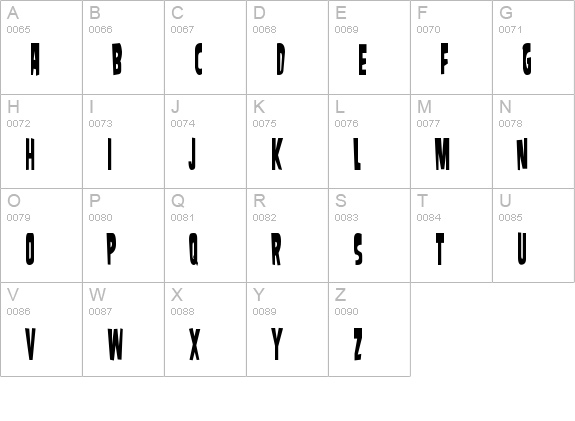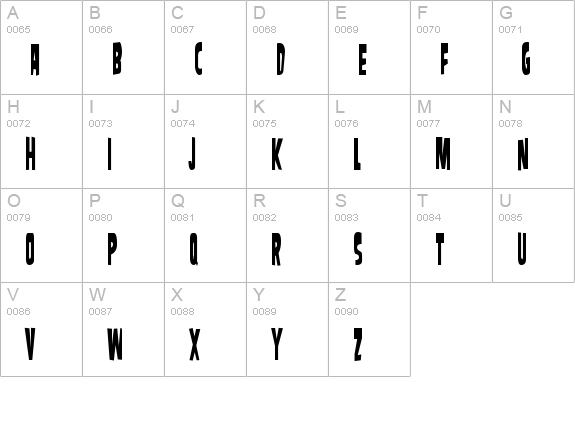
SamdanCondensed Font Details
SamdanCondensed font is a stunning typeface that exudes a sense of elegance and sophistication. With its sleek and slender design, it is perfect for a wide range of design projects, from logos and branding to headlines and posters. This font boasts a harmonious balance between its bold letters and delicate curves, creating a visually appealing and memorable look. Whether you want to make a bold statement or add a touch of refinement to your designs, SamdanCondensed font is sure to impress. What sets this font apart is its versatility and adaptability. It can effortlessly complement both modern and vintage designs, making it an excellent choice for designers looking for a font that can stand the test of time. But what makes SamdanCondensed font even more enticing is the fact that it is free. That's right, you can download this amazing font for absolutely no cost at FontsMarket.com. This means that you can elevate your design projects without breaking the bank. So why wait? Add a touch of sophistication and elegance to your designs with SamdanCondensed font. Download it for free today at FontsMarket.com and let your creativity soar to new heights.